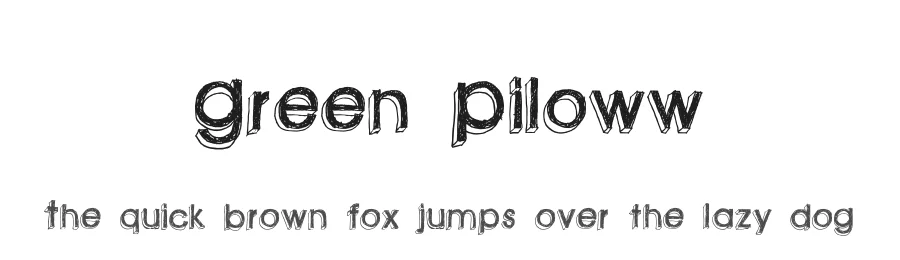
About Sweet Torture (cracked brain) Font
Sweet Torture (cracked brain) is a decorative font designed by Mr.Fisk Fonts. It includes 60 glyphs, a regular weight, TTF (TrueType) format, and 89 languages. Sweet Torture (cracked brain) is free to download; check the license details on this page before commercial use. Decorative fonts like Sweet Torture (cracked brain) work best for logos, posters, packaging, and standout headlines.
Sweet Torture (cracked brain) Font is a decorative font that shines as a display or heading face. Pair it with a clean sans-serif or serif font for body text β the contrast creates a clear hierarchy while the two styles stay balanced and easy to read.
Sweet Torture (cracked brain) Font
Sweet Torture (cracked brain) Font is a decorative typeface by Mr.Fisk Fonts, ideal for logos, invitations, branding, and creative projects.